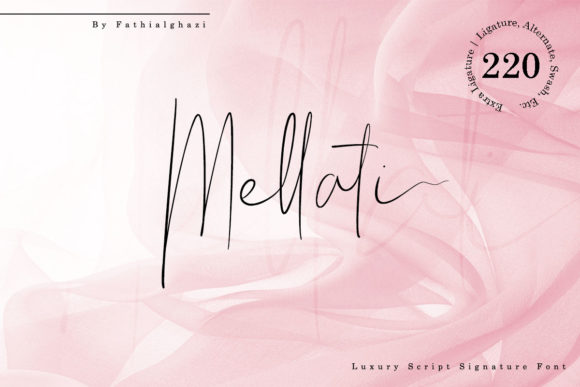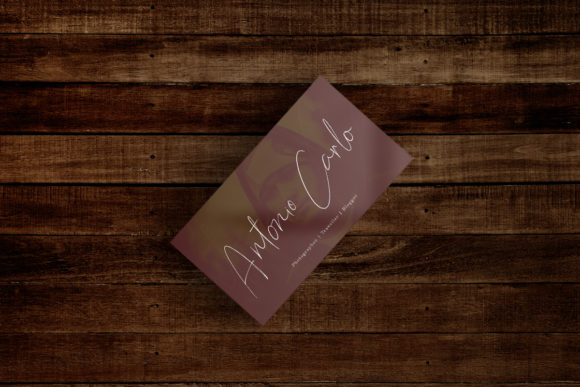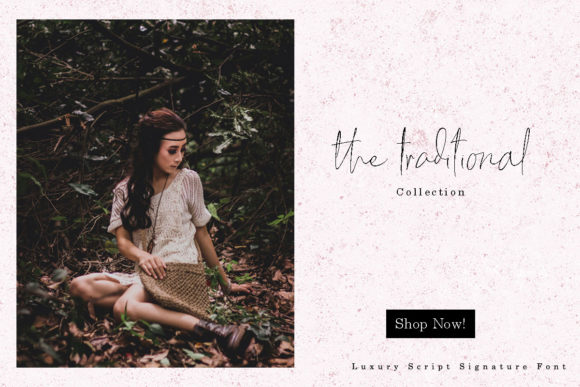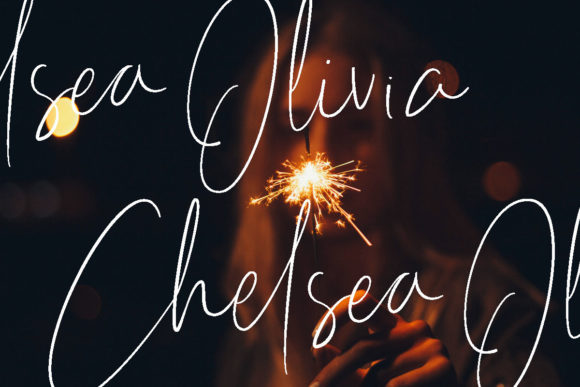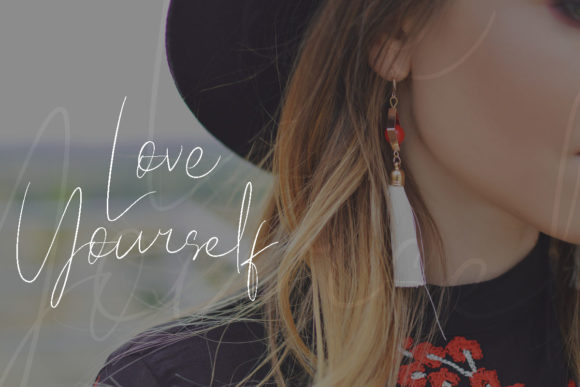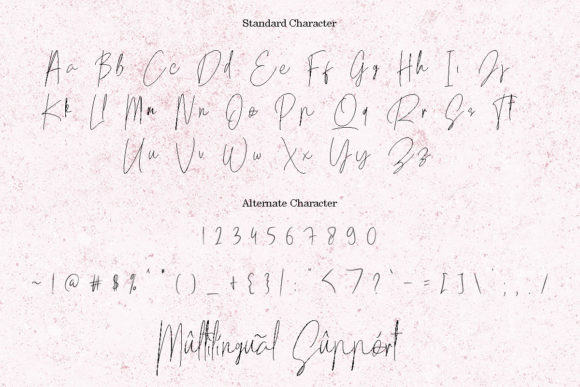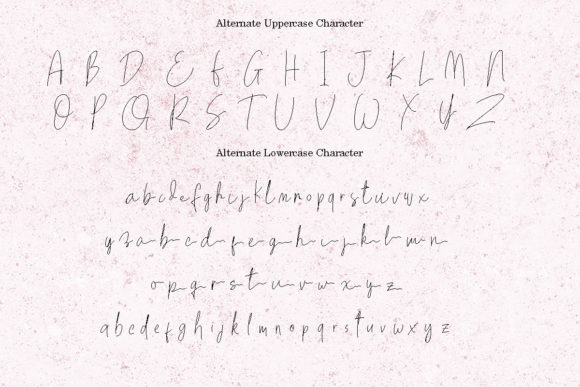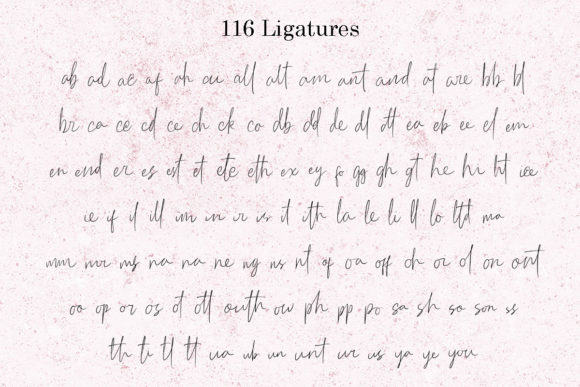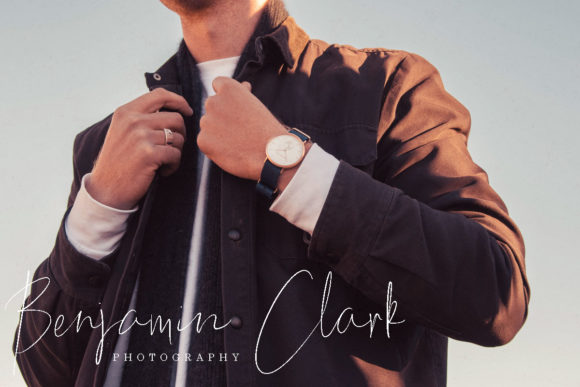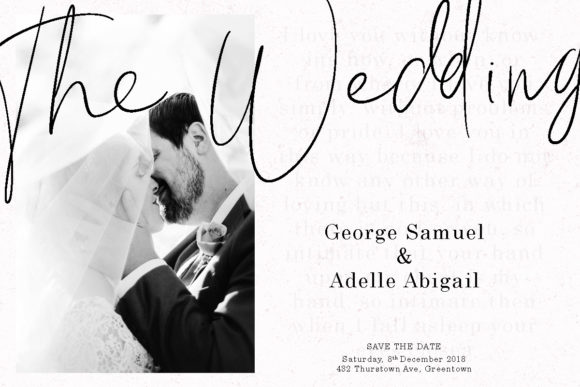
Mellati Script Font
About Mellati Script Font
The Mellati is a beautiful signature script. It was created to give your designs a natural, luxury feel.
It’s suitable for use in a variety of media, such as posters, business cards, brand logos, invitations, banners, stationary, fashion, quotes and other media that requires beautiful and luxurious writing.